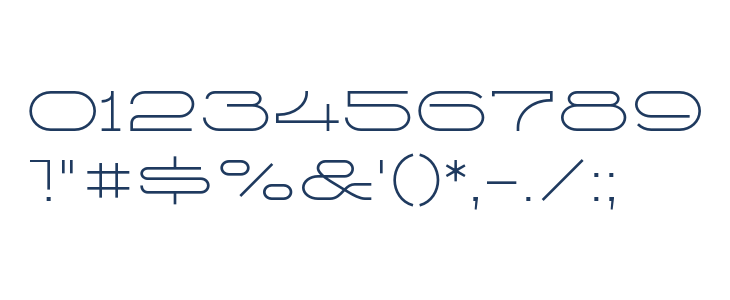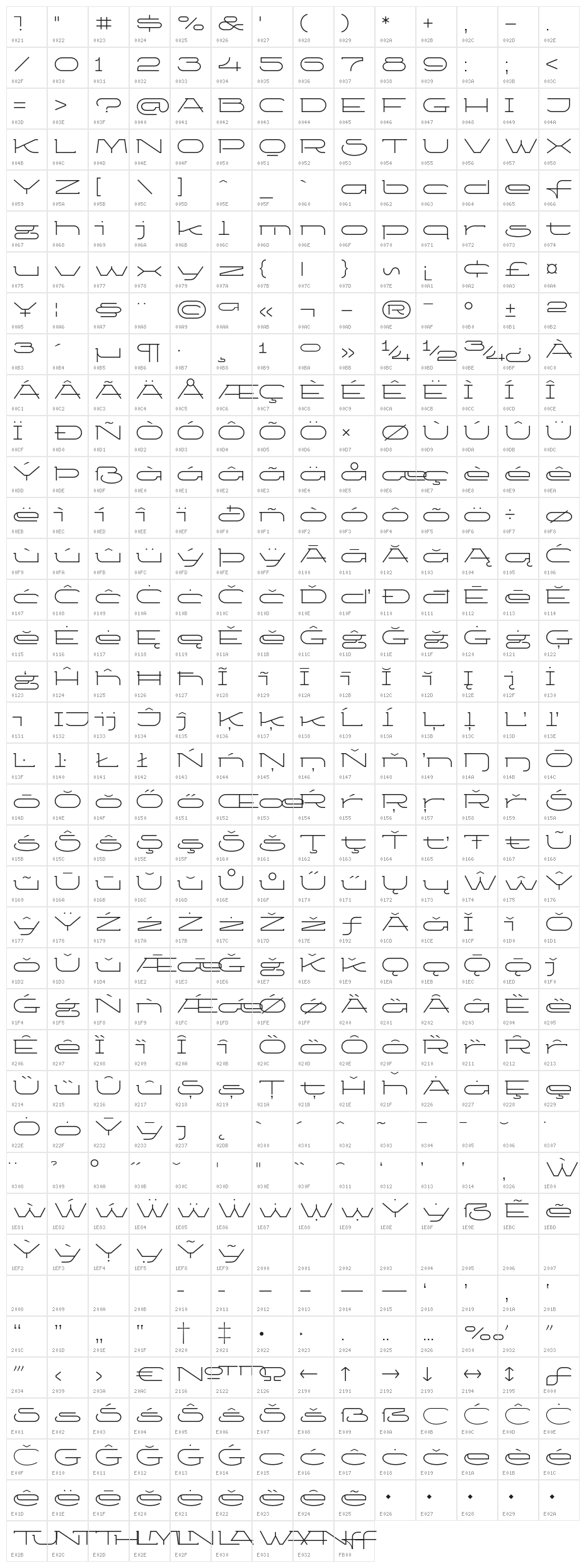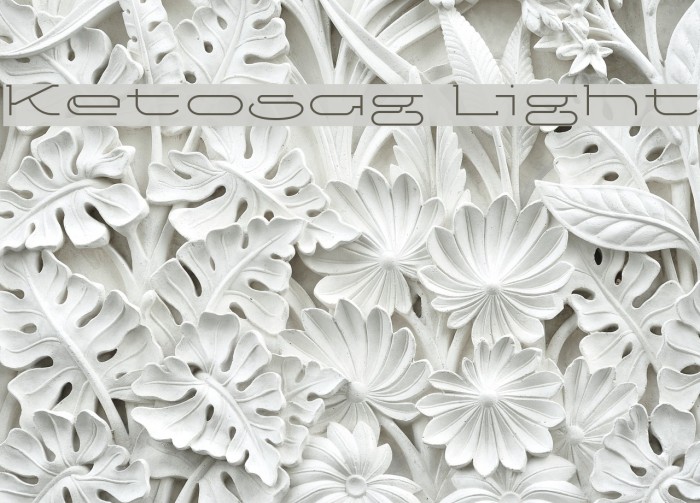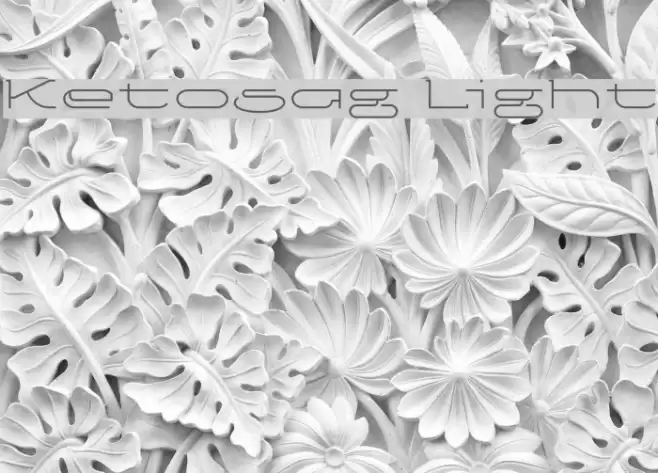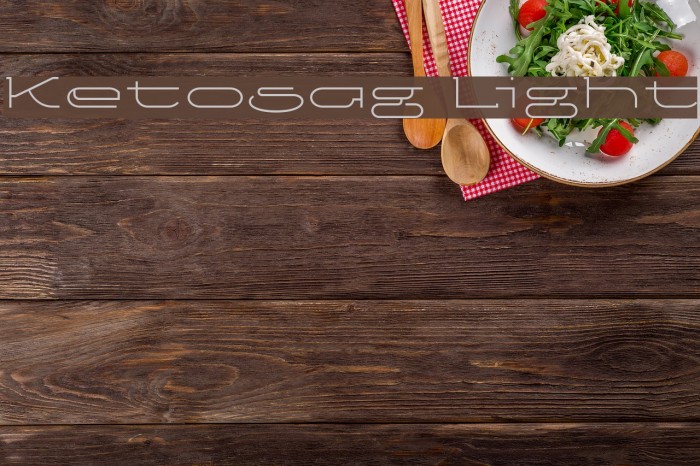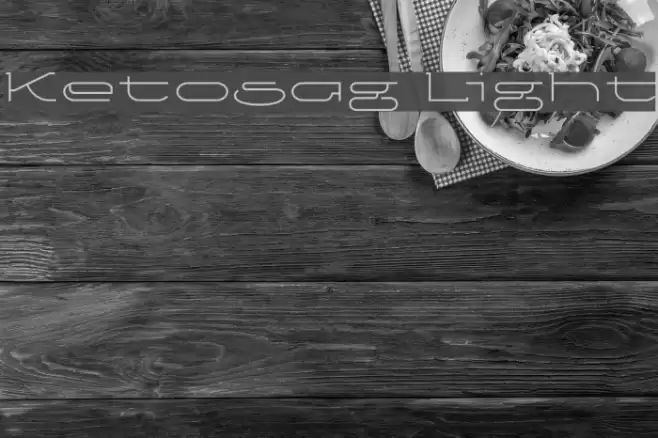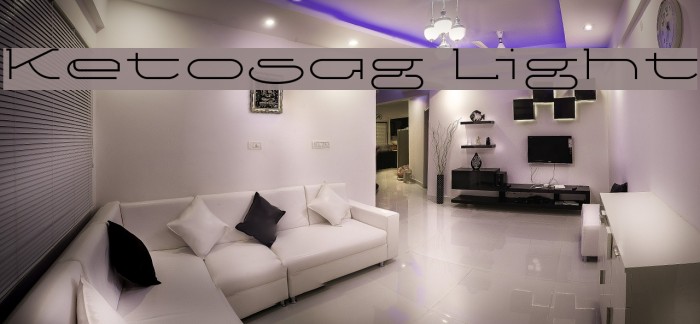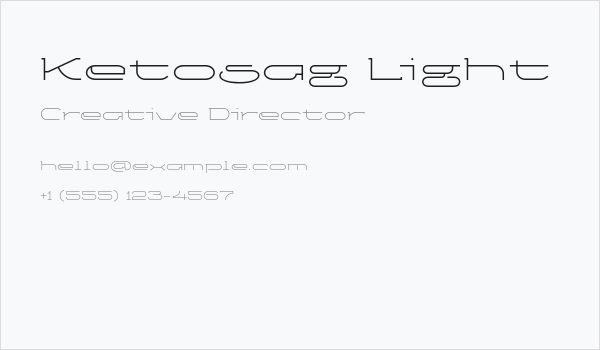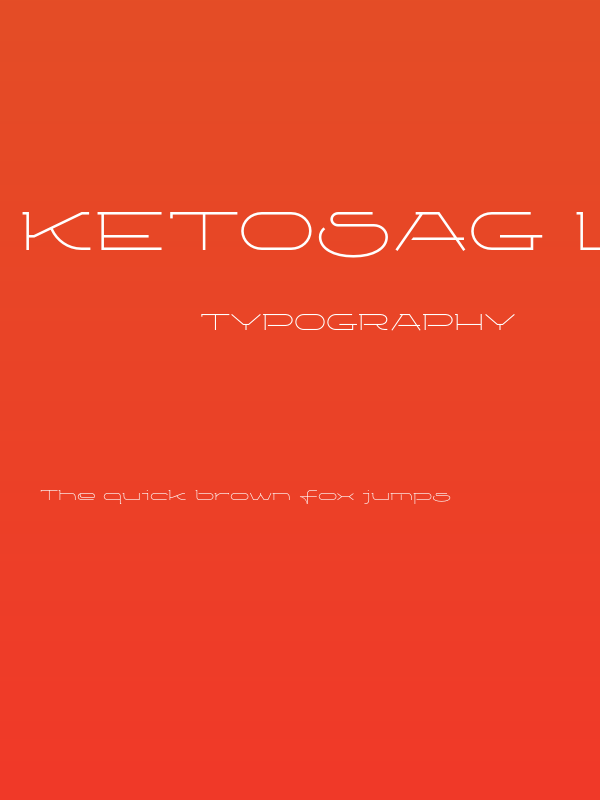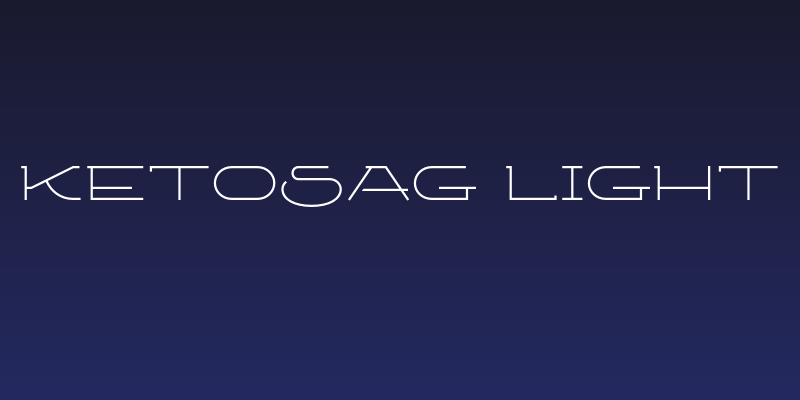
Ketosag Light Font
Ketosag Light Description
This font features a sleek, modern design with a geometric structure. The characters are composed of thin lines with consistent stroke widths, giving it a minimalist and futuristic appearance. The uppercase and lowercase letters maintain a uniform height, contributing to a clean and orderly look. The numerals and special characters are designed to match the overall aesthetic, ensuring visual harmony across all elements. The font's simplicity and elegance make it suitable for contemporary design projects where clarity and style are paramount.
| Use Case | Logos, Headlines, Digital Interfaces |
| Proposed Projects | Ideal for tech branding, modern websites, digital interfaces, and minimalist posters. |